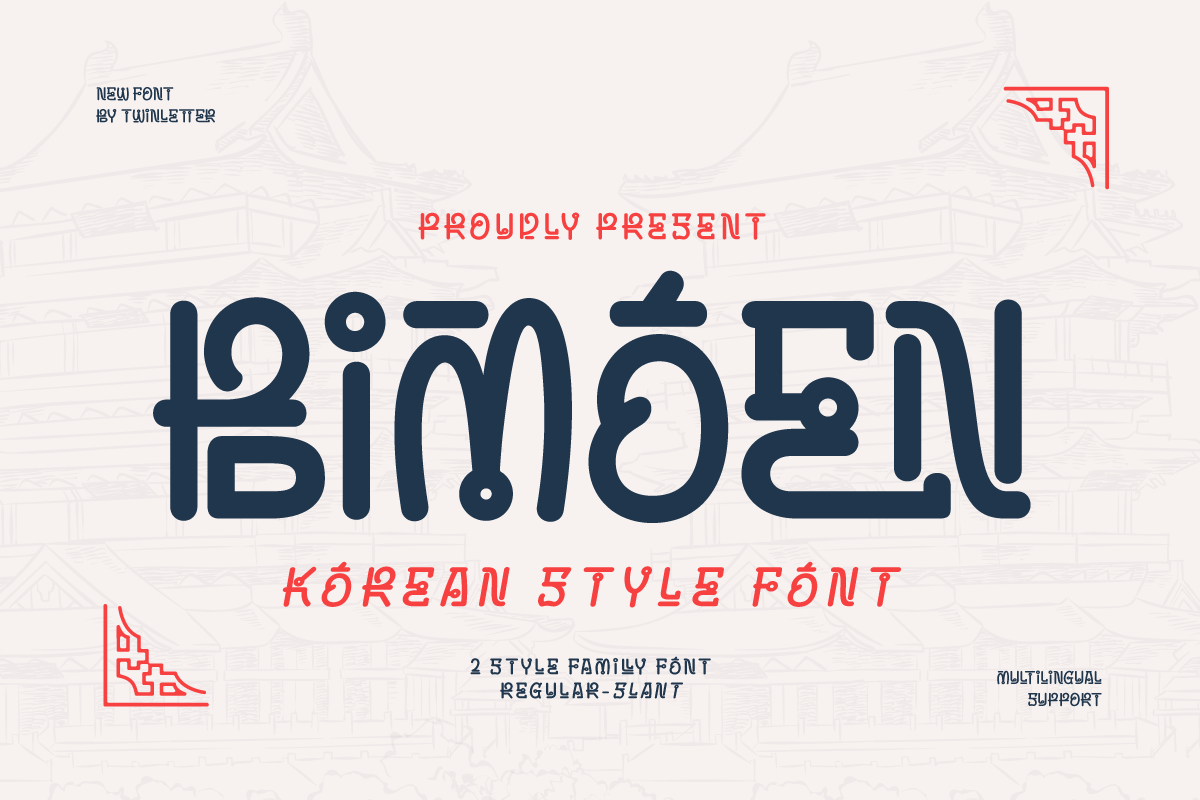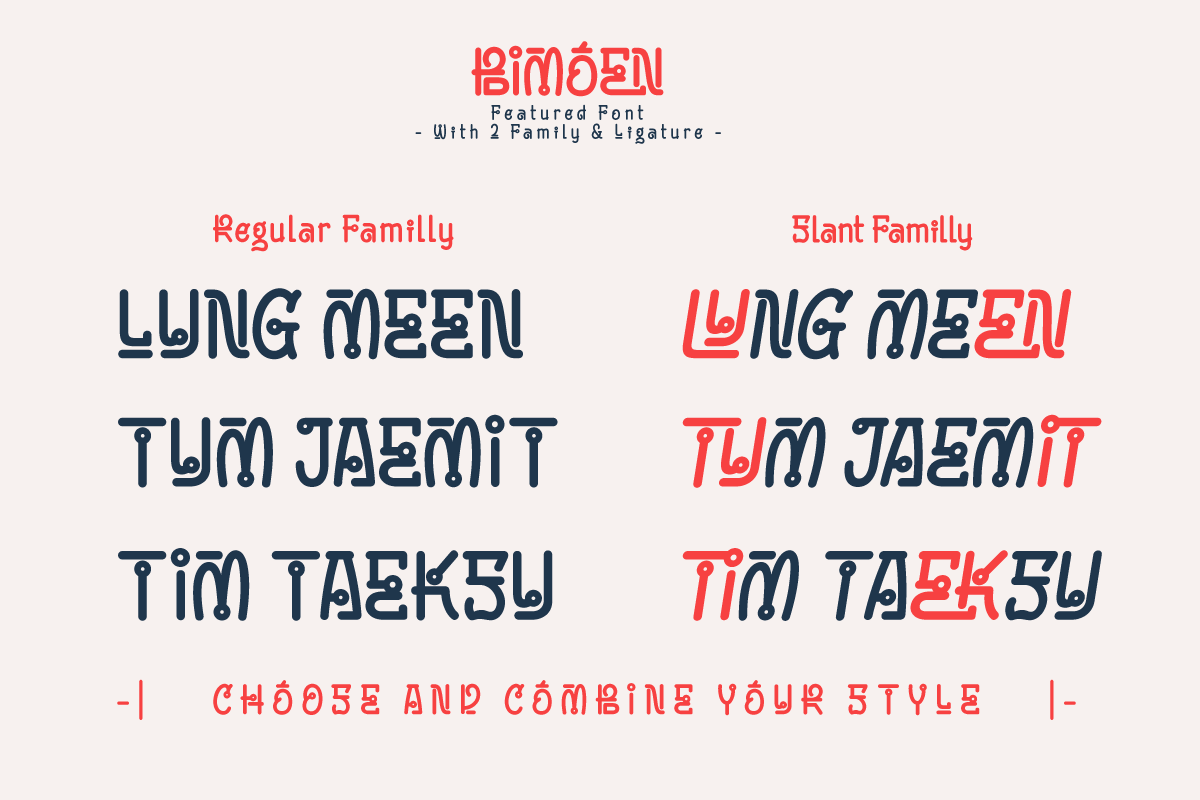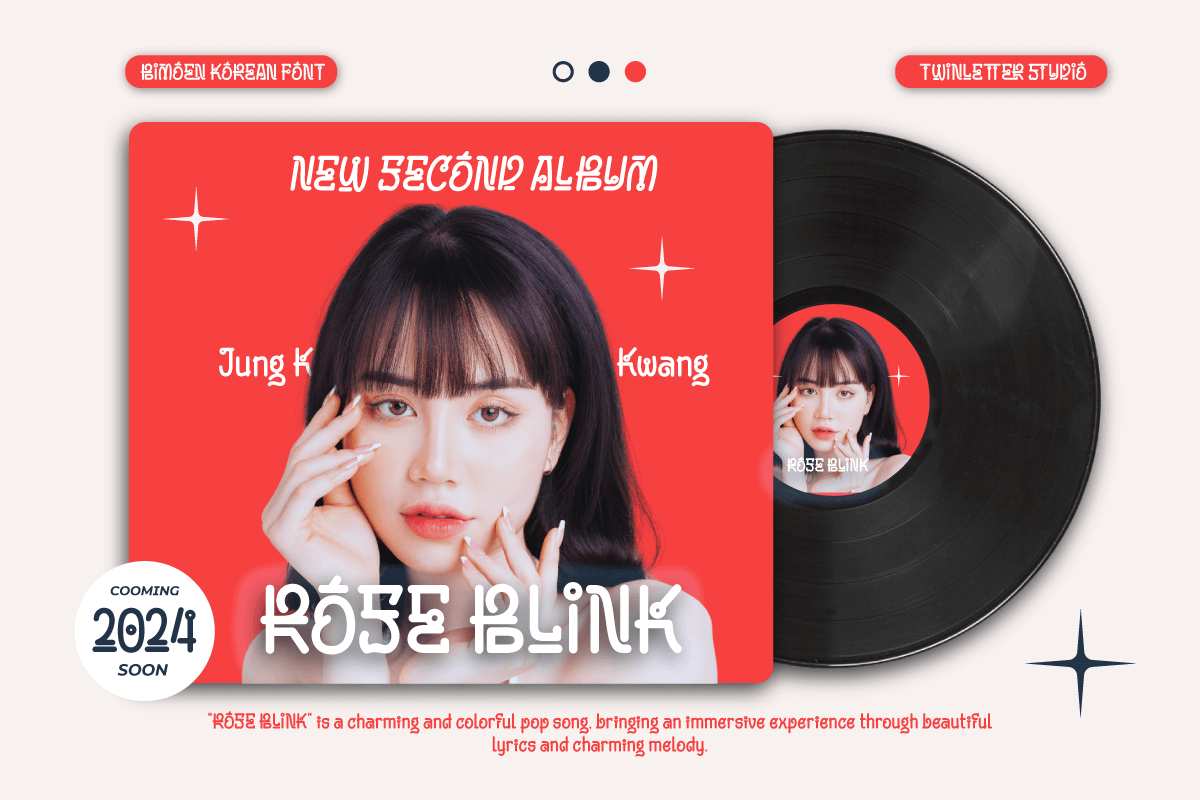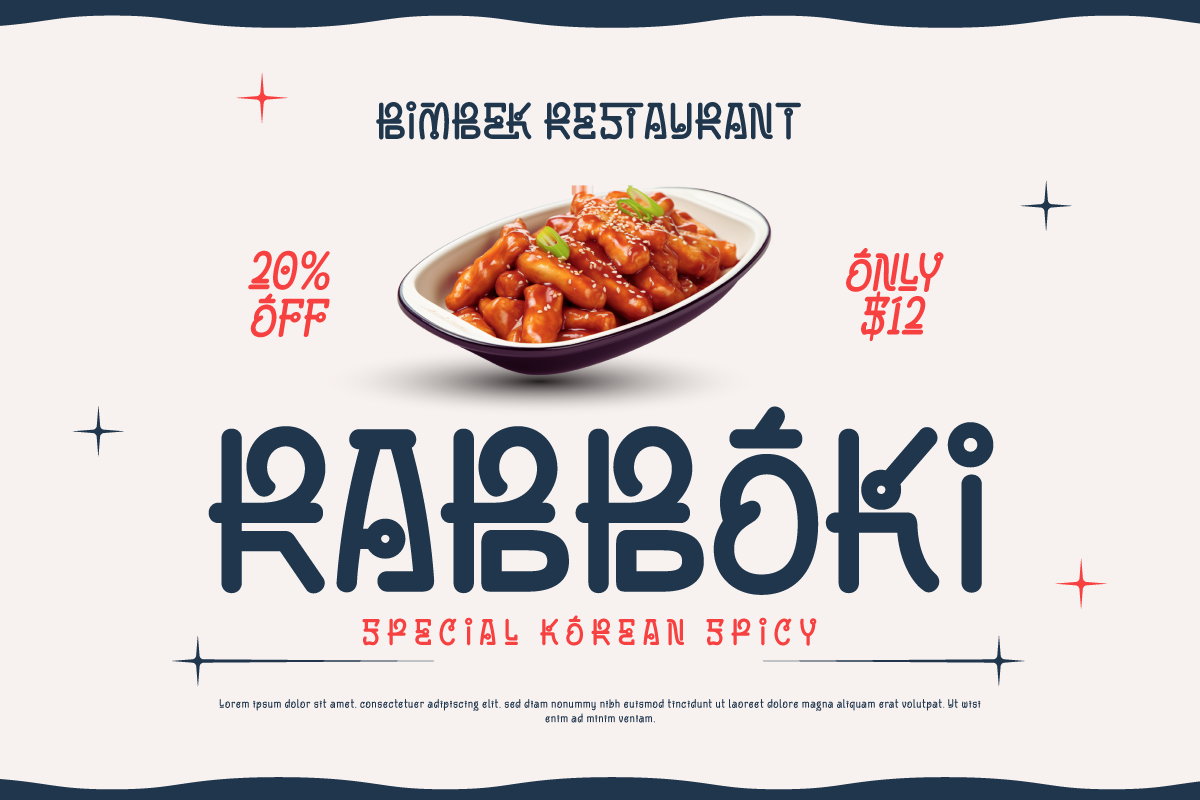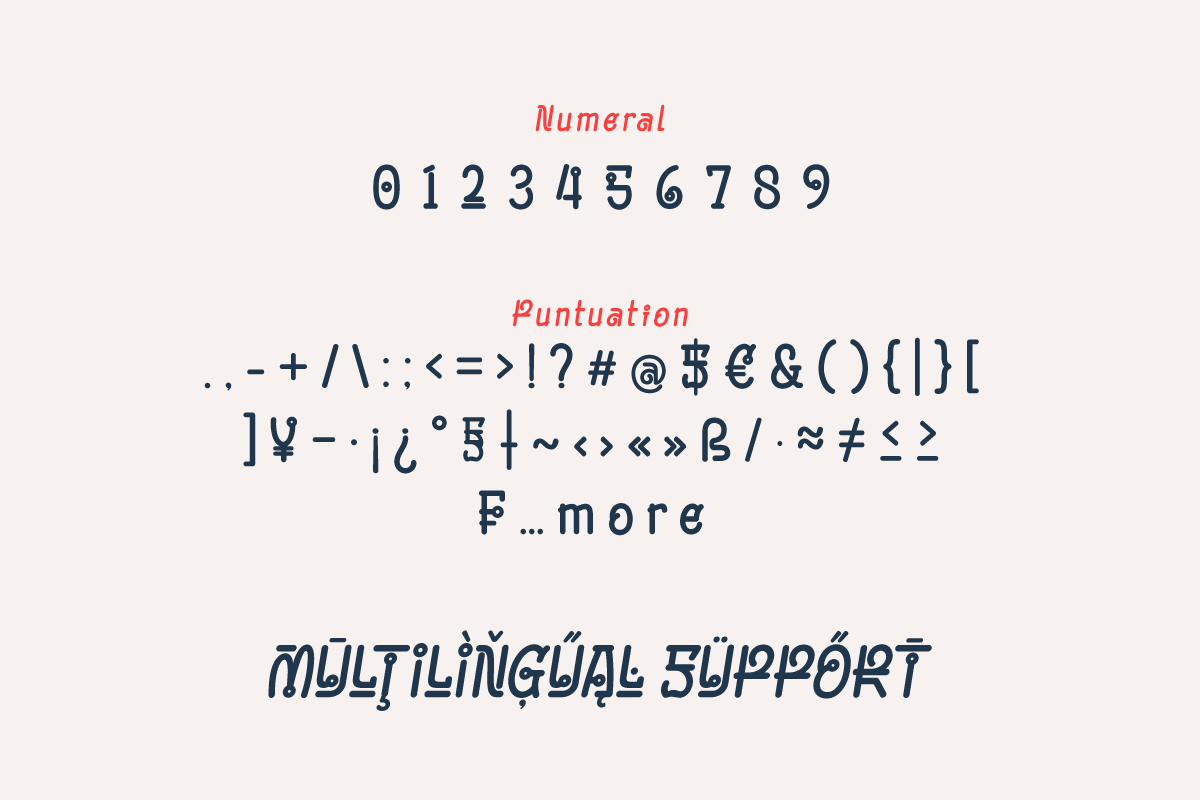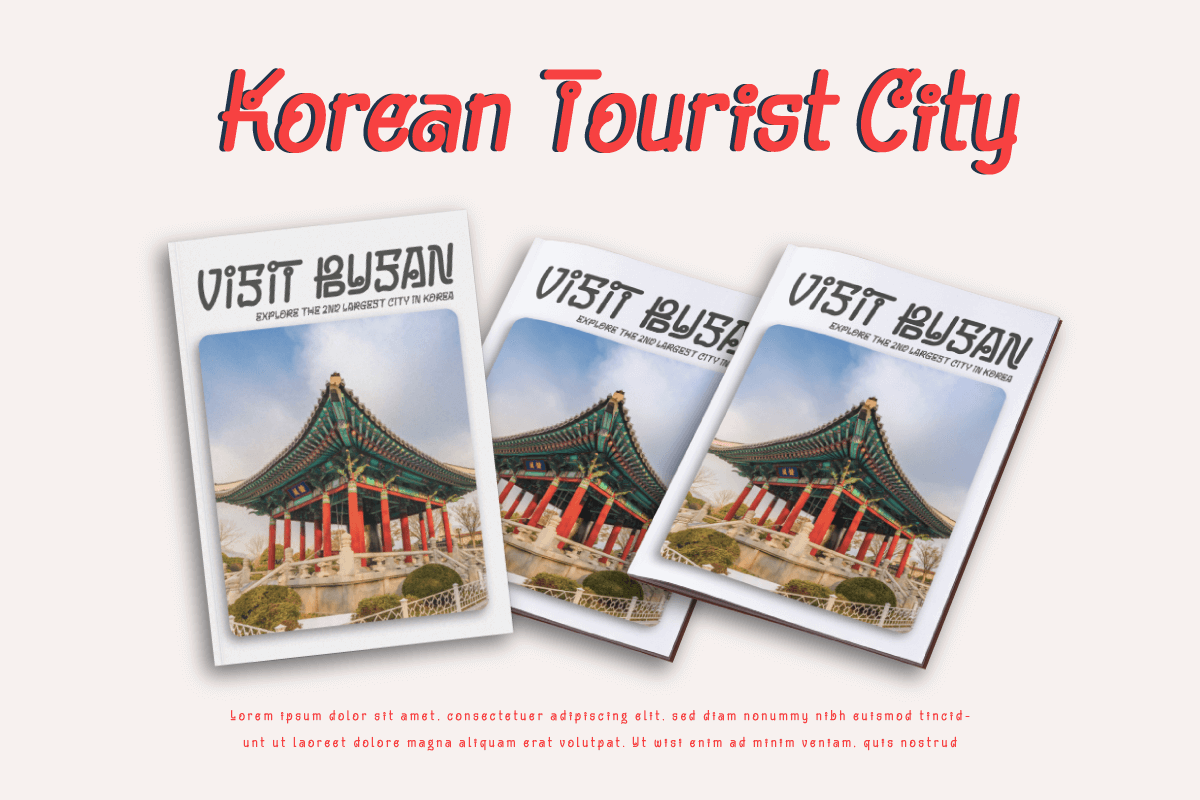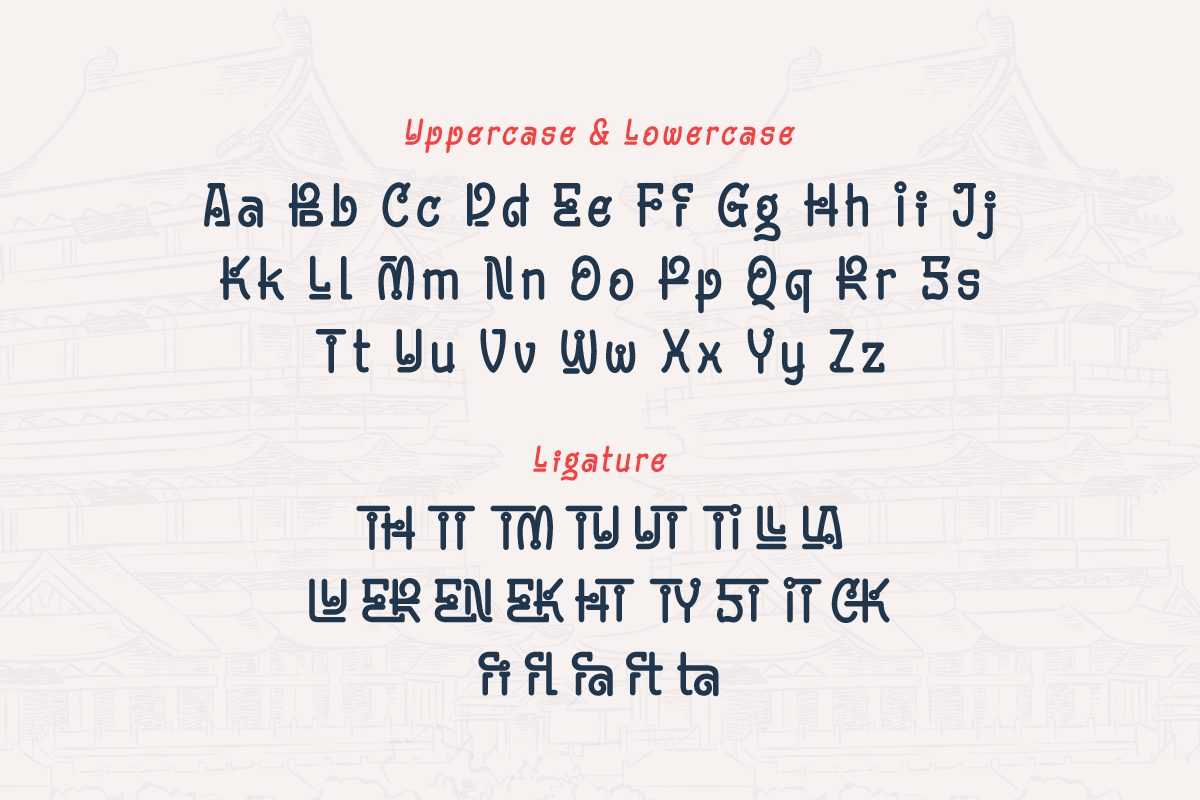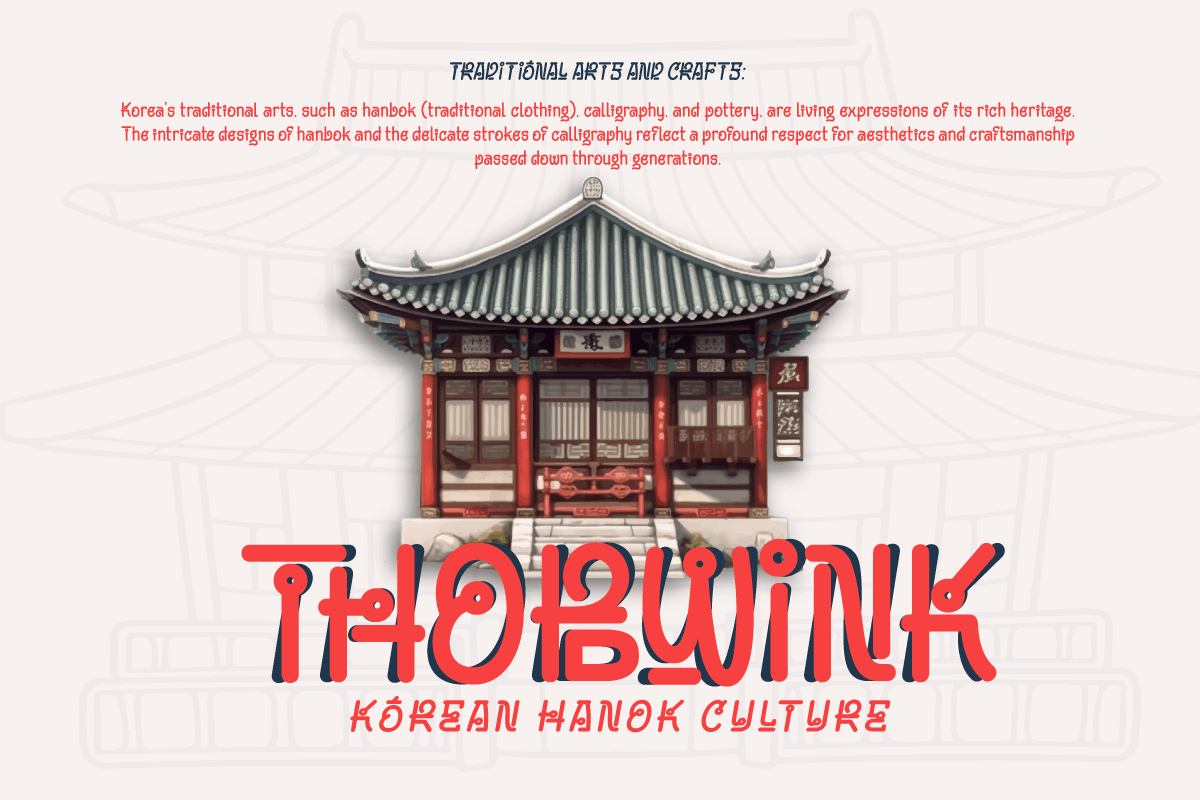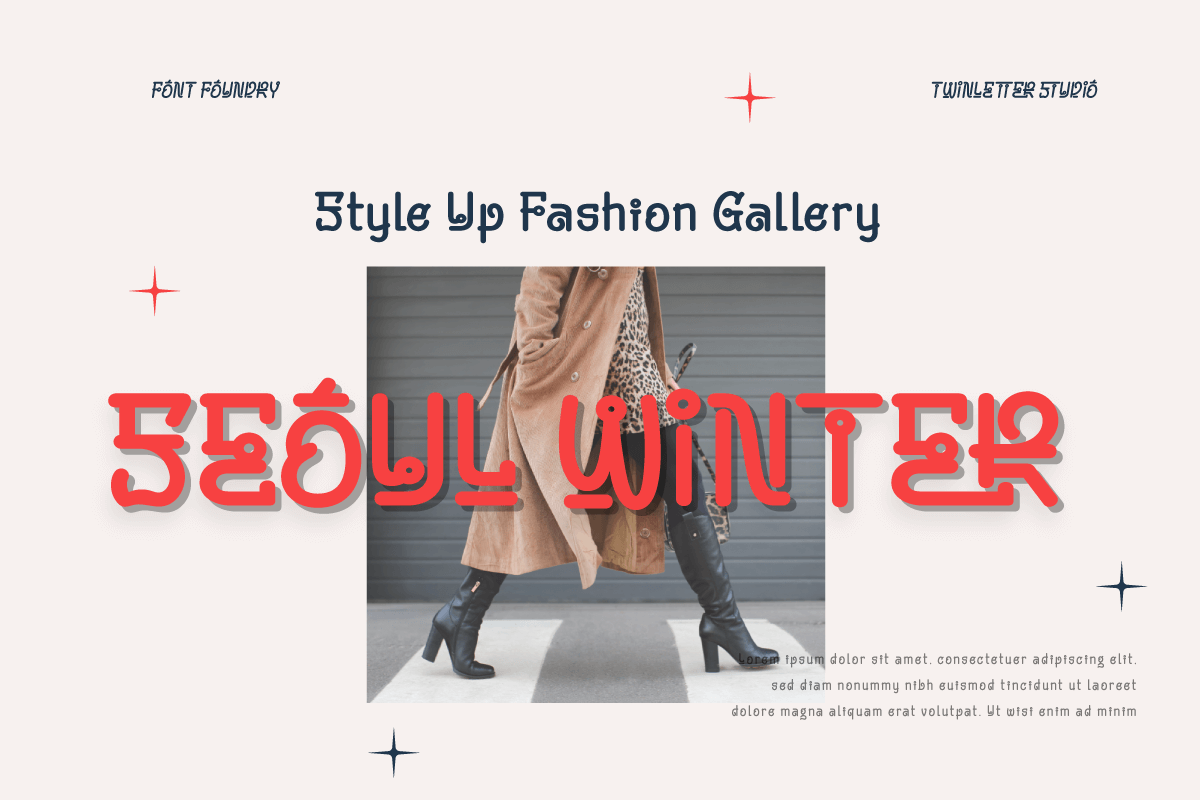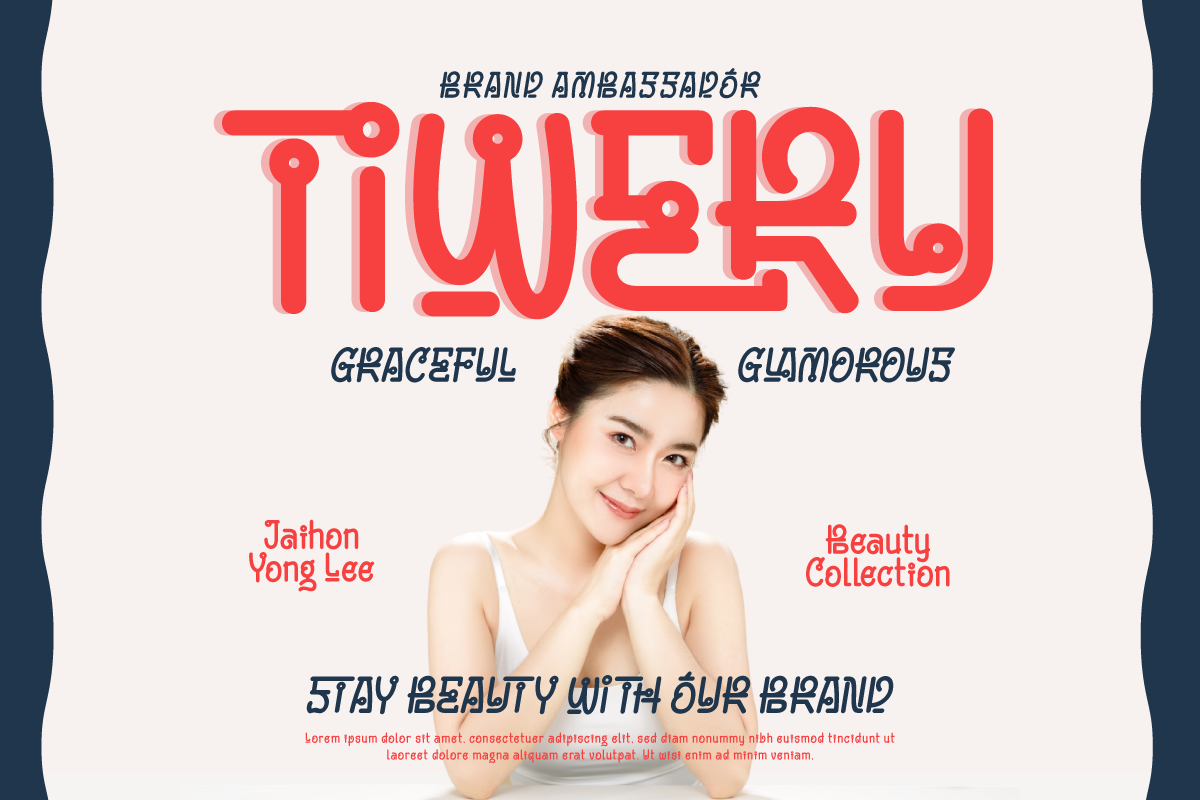
Bimoen - Korean Style Font
Bimoen is a reflection of Korean elegance and gentleness in a stunning font. Each curve of the letters expresses the rich beauty of Korean culture, creating an enchanting and inviting atmosphere in each work.
Designed for branding projects, logo typography, and special events, Bimoen brings the beauty of Asia into your designs. With a design that is easy to understand and learn, this font gives a different and distinctive feel to each work.
Let Bimoen take you on a journey through the wonders of Korean culture. With this font, bring dazzling beauty to your designs, making every project a representation of timeless beauty.